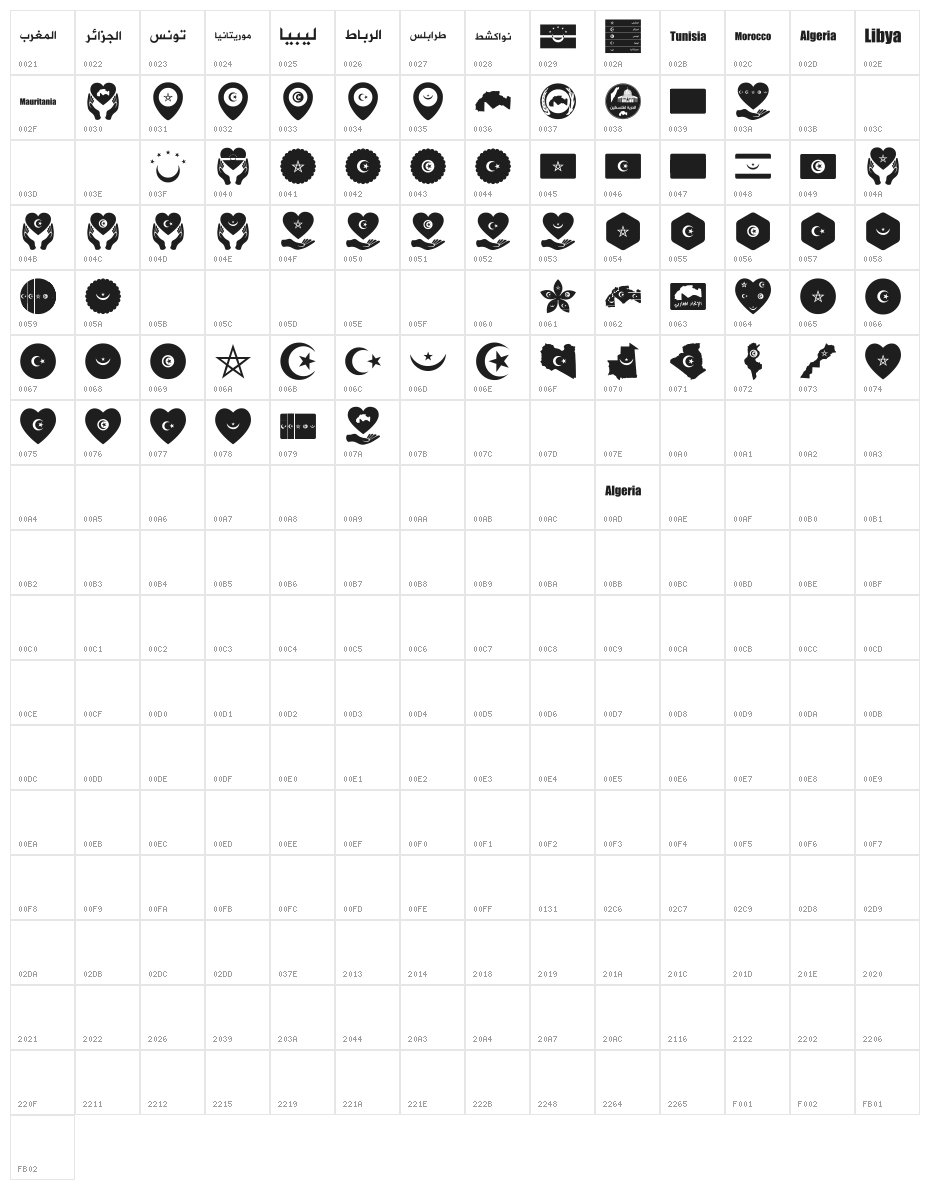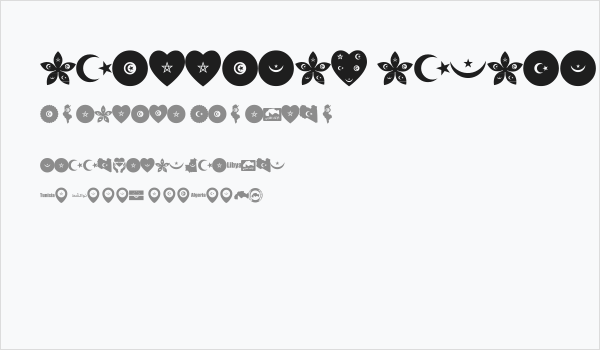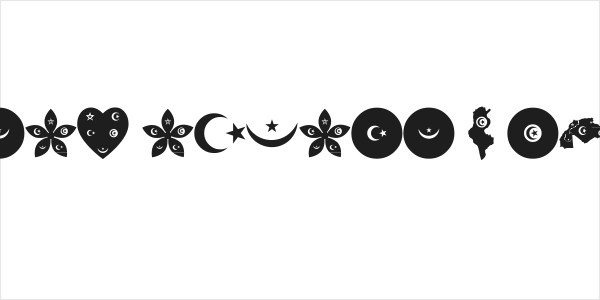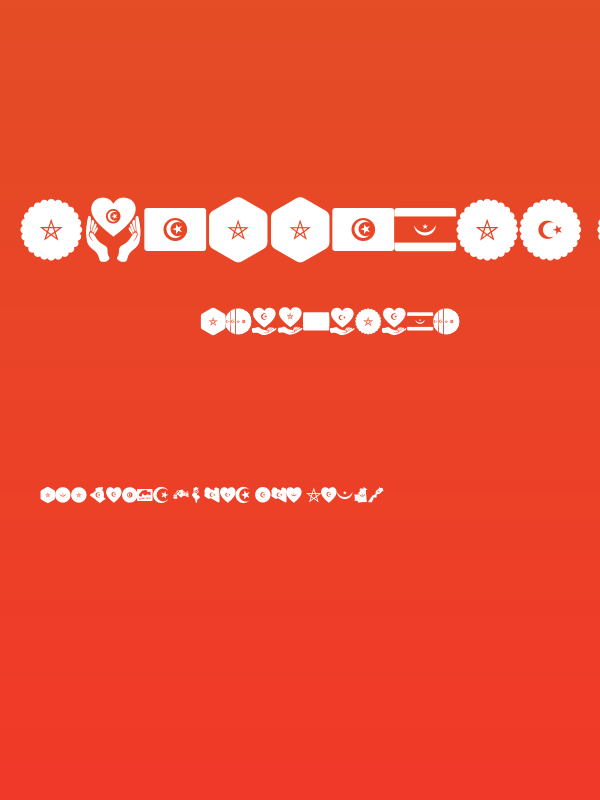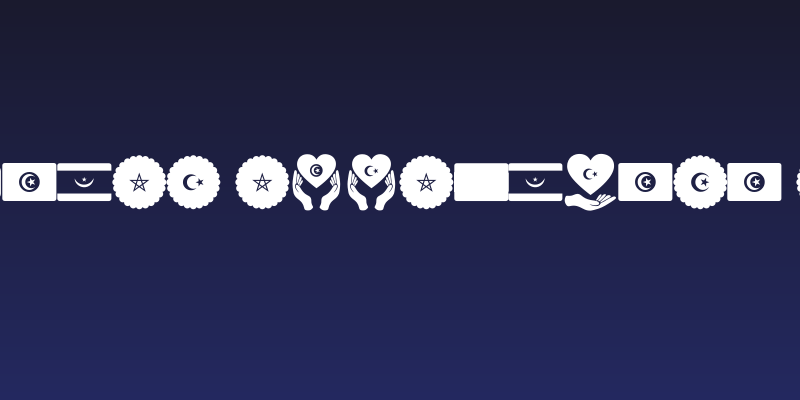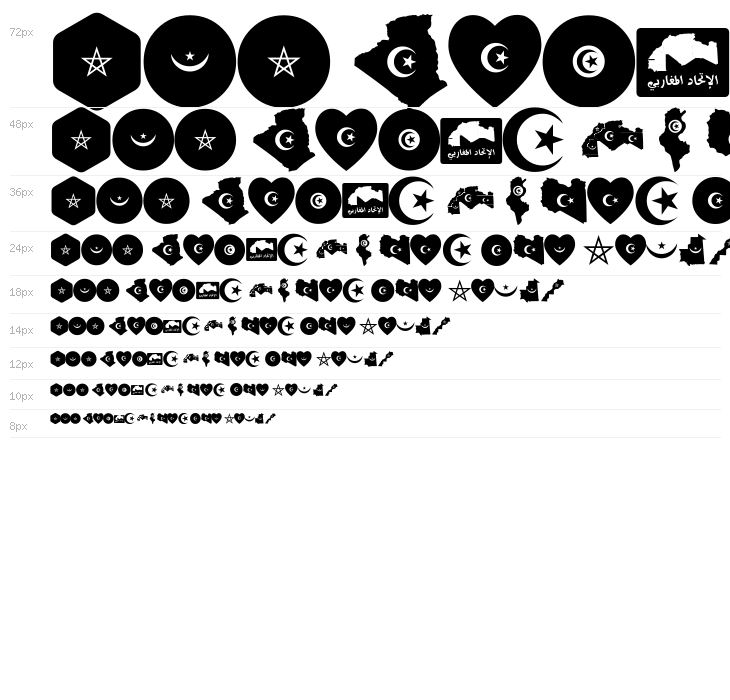
alittihad almaghribi color Font
alittihad almaghribi color Description
A decorative dingbat and symbol font featuring icons, emblems, and map silhouettes representing North African Maghreb countries. Includes hearts, hands, stars, crescents, hexagons, location pins, and Arabic/Latin text elements, with strong visual references to national flags and regional unity.
| Overall Style | Decorative, Regional, Modern |
| Use Case | Icons, Logos, Thematic graphics, Headings |
| Proposed Projects | Infographics, educational materials, cultural event branding, regional maps, decorative headings, social media graphics. |